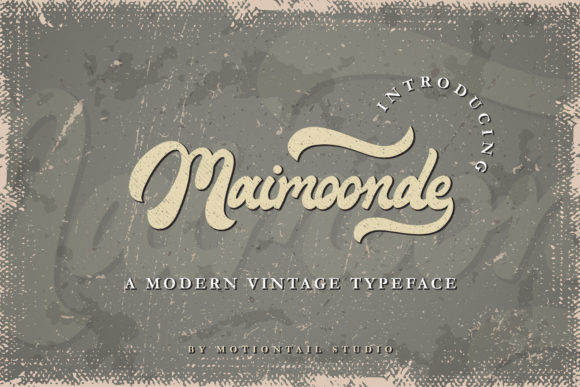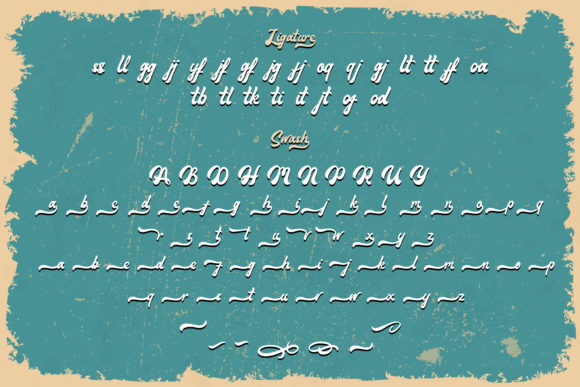
About Maimoonde Font
Maimoonde is a vintage styled, cursive handwritten font. Elegant and stylish, this font will elevate each of your creative ideas. Maimoonde is PUA encoded which means you can access all of the glyphs and swashes with ease!